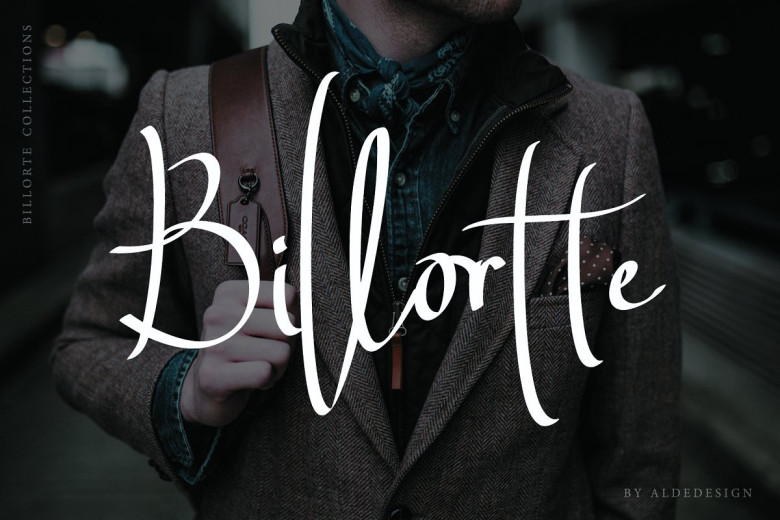
Billortte Script Font
This is a handwritten typeface with classic root. A beautiful formal script and elegant touch. Introducing Billortte Font. Billortte is a font with simple and classy taste, comes with 2 Elegant Variations, opentype features such as ligatures, and free Slant Version . We keep this font looks classy, readable, elegant, stylish, catchy and absolutly easy to use. Billortte Font is the great choice for watermark on photography, signature or signature logo design, album cover, business card, quotes, and many other design project.